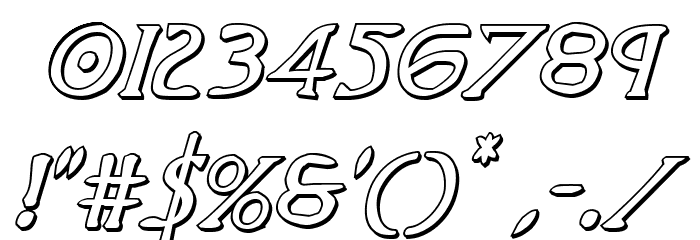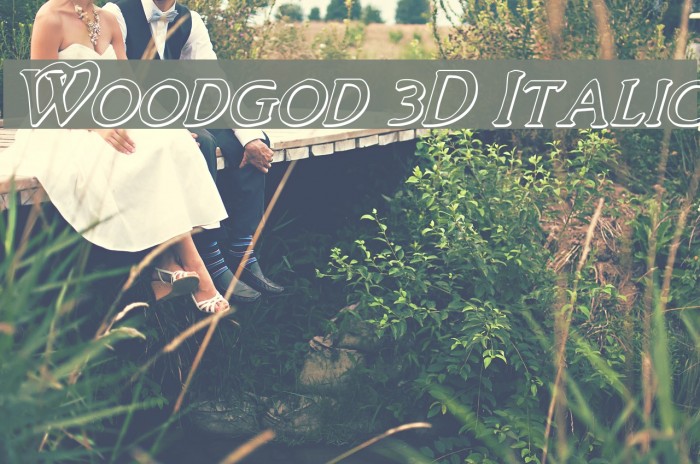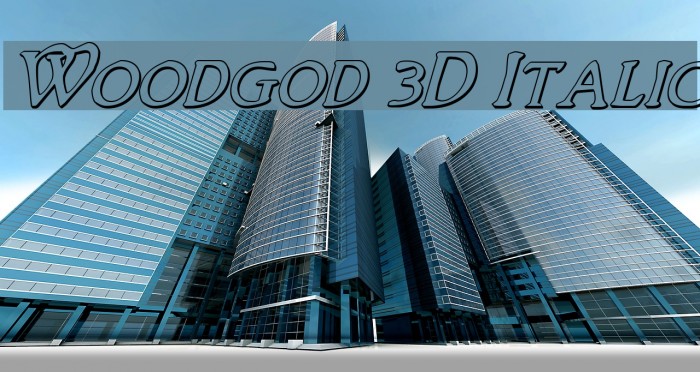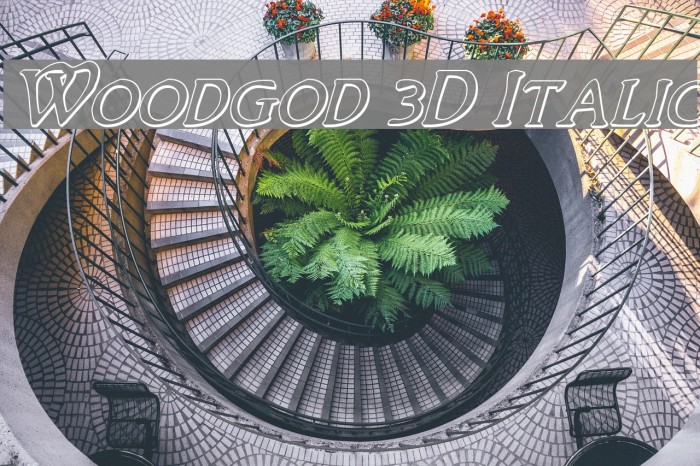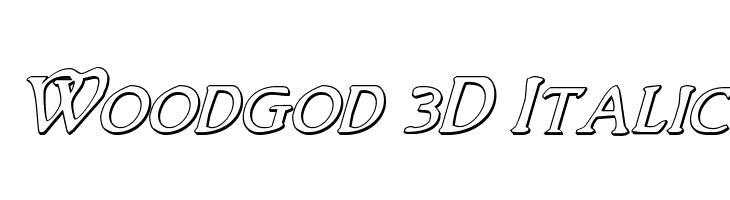
Woodgod 3D Italic Font
This font features a dynamic and bold 3D italic style, characterized by its strong outlines and shadow effects that create a sense of depth and movement. The uppercase and lowercase letters maintain a consistent slant, enhancing the italicized appearance. The numerals and special characters are designed to match the overall aesthetic, providing a cohesive look across all elements. The font's unique style makes it suitable for projects that require a striking and modern appearance.
A bold 3D italic font with strong outlines and shadow effects.
- Proposed Projects: Ideal for posters, logos, video game graphics, and any design needing a bold, modern touch.